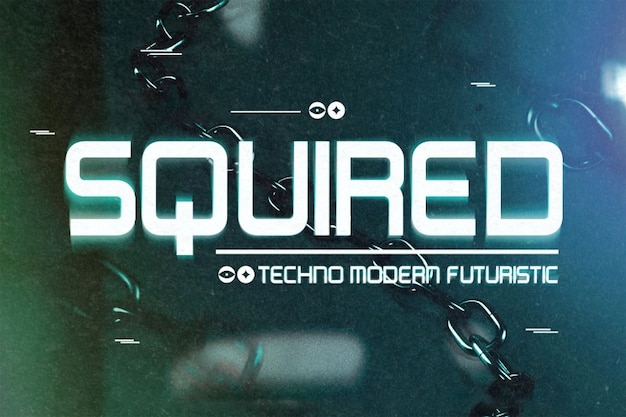
Squired Font
Drizy Studio
Modern, futuristic, and techno-inspired, Squired boasts a geometrically sleek design that embodies innovation. Its sharp, precise lines and futuristic aesthetics reflect a contemporary vibe. With a geometrically balanced structure, this font captures a futuristic essence ideal for conveying modernity and technological advancement. Squired is perfect for designs seeking a bold, cutting-edge typographic style, embodying the essence of a sleek and tech-driven future.